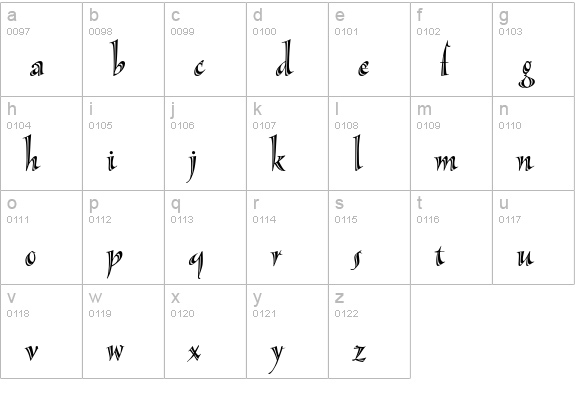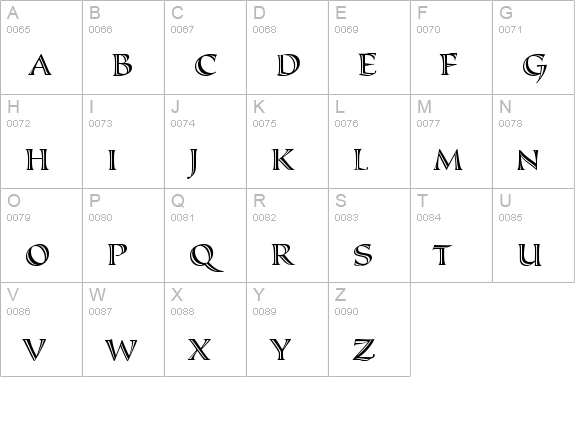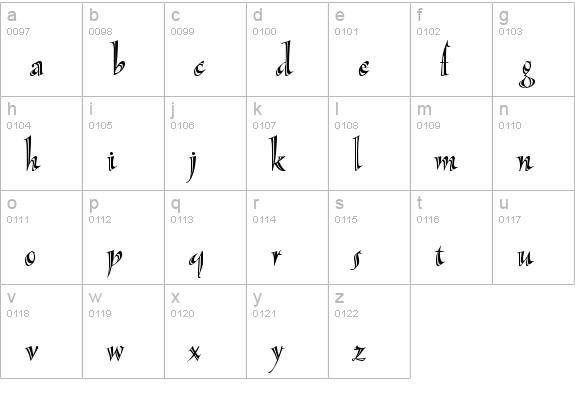
Sassafras Lx Font Details
Sassafras Lx is a stunning and versatile font that will add a touch of elegance and sophistication to any design project. With its unique and intricate letterforms, this typeface is perfect for creating eye-catching headlines, logos, and branding materials. The Sassafras Lx font features a balanced combination of sharp edges and smooth curves, resulting in a harmonious and visually pleasing aesthetic. Its clean and modern design makes it suitable for a wide range of applications, from print to digital media. One of the most remarkable aspects of Sassafras Lx is that it is available free of charge. You can easily download this font from FontsMarket.com, where it is readily accessible for anyone looking to enhance their creative work without breaking the bank. Whether you're a professional designer or a passionate hobbyist, Sassafras Lx offers a wealth of creative possibilities. Its extensive character set includes uppercase and lowercase letters, numerals, punctuation marks, and special characters, ensuring that you have all the tools you need to bring your ideas to life. With its legibility and versatility, Sassafras Lx is suitable for both small and large-scale projects. Whether you're designing a sophisticated wedding invitation or a modern website, this font will provide a touch of elegance and style to your creations. Download Sassafras Lx for free today at FontsMarket.com and unlock the potential of this remarkable font. Elevate your designs and captivate your audience with the timeless beauty of Sassafras Lx.